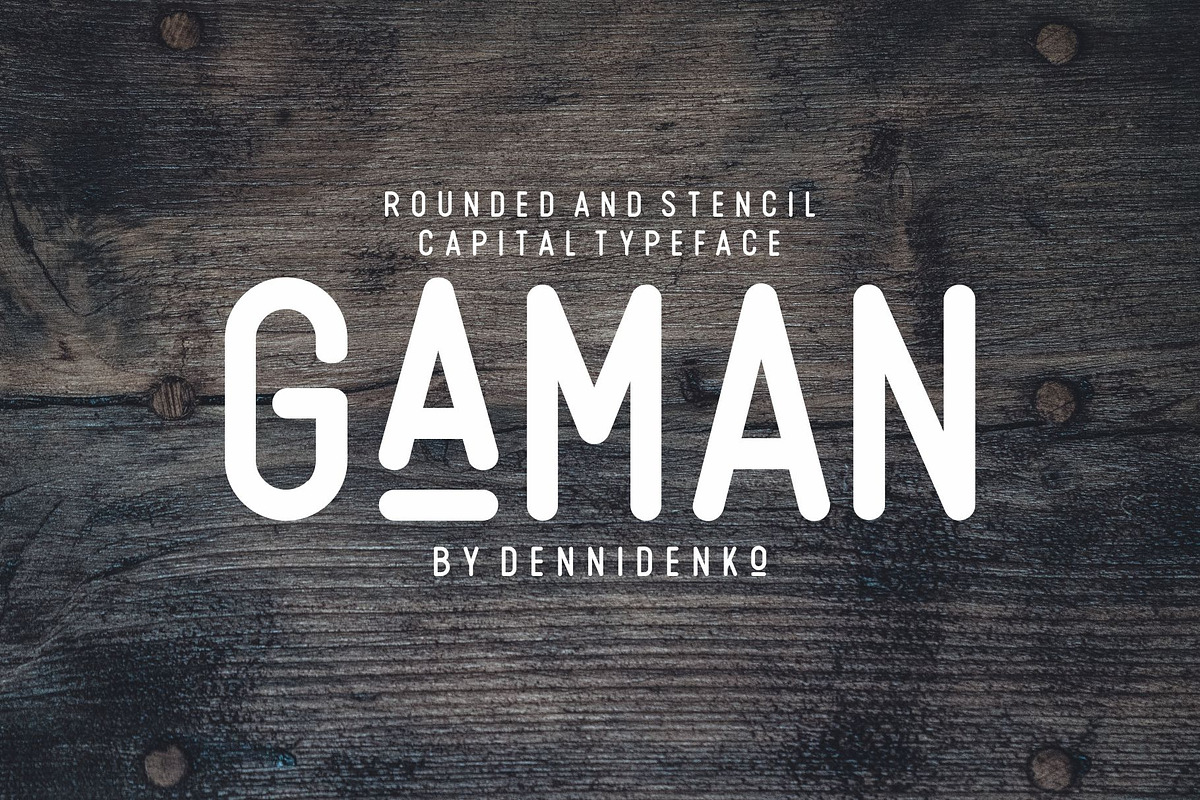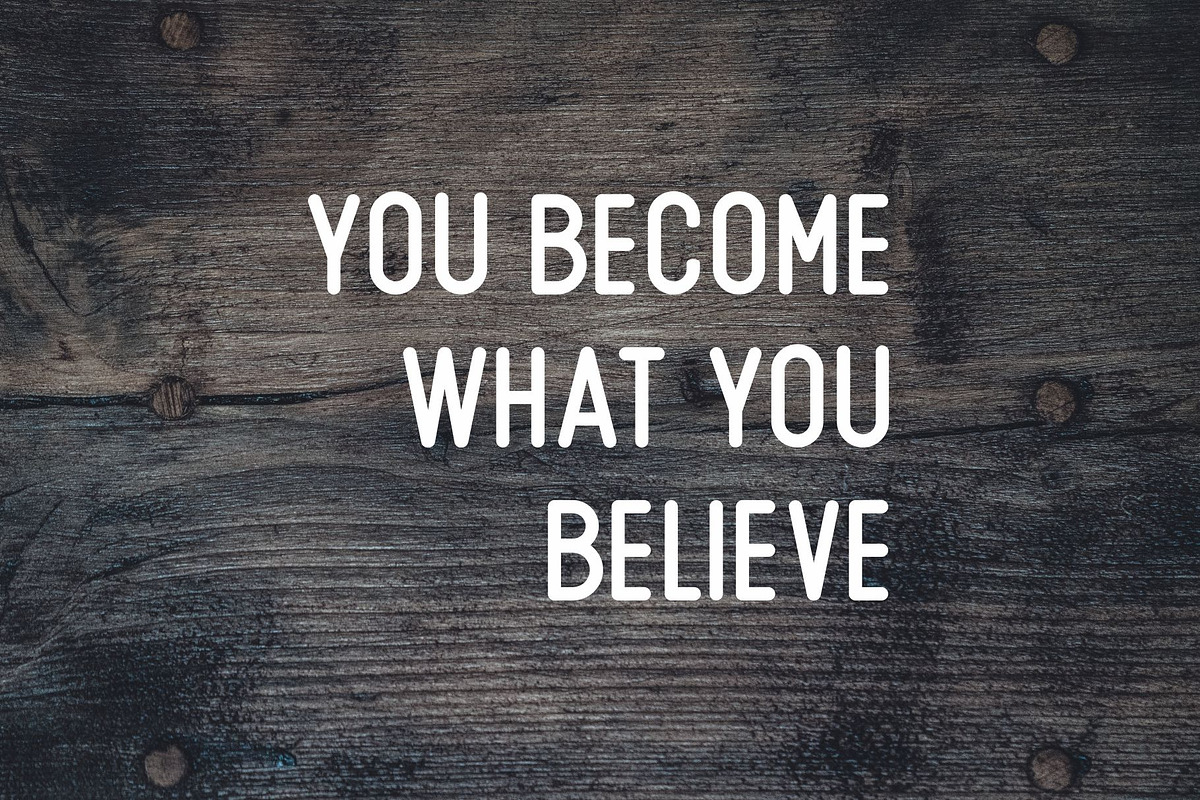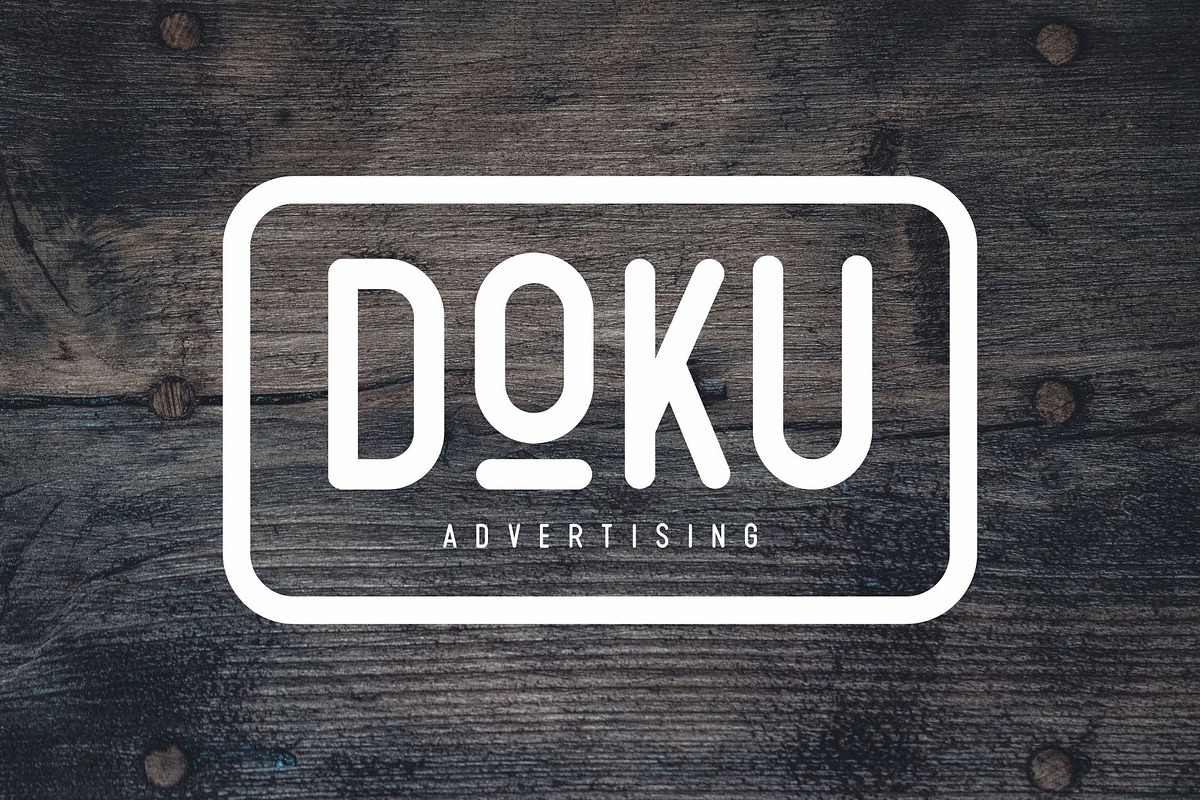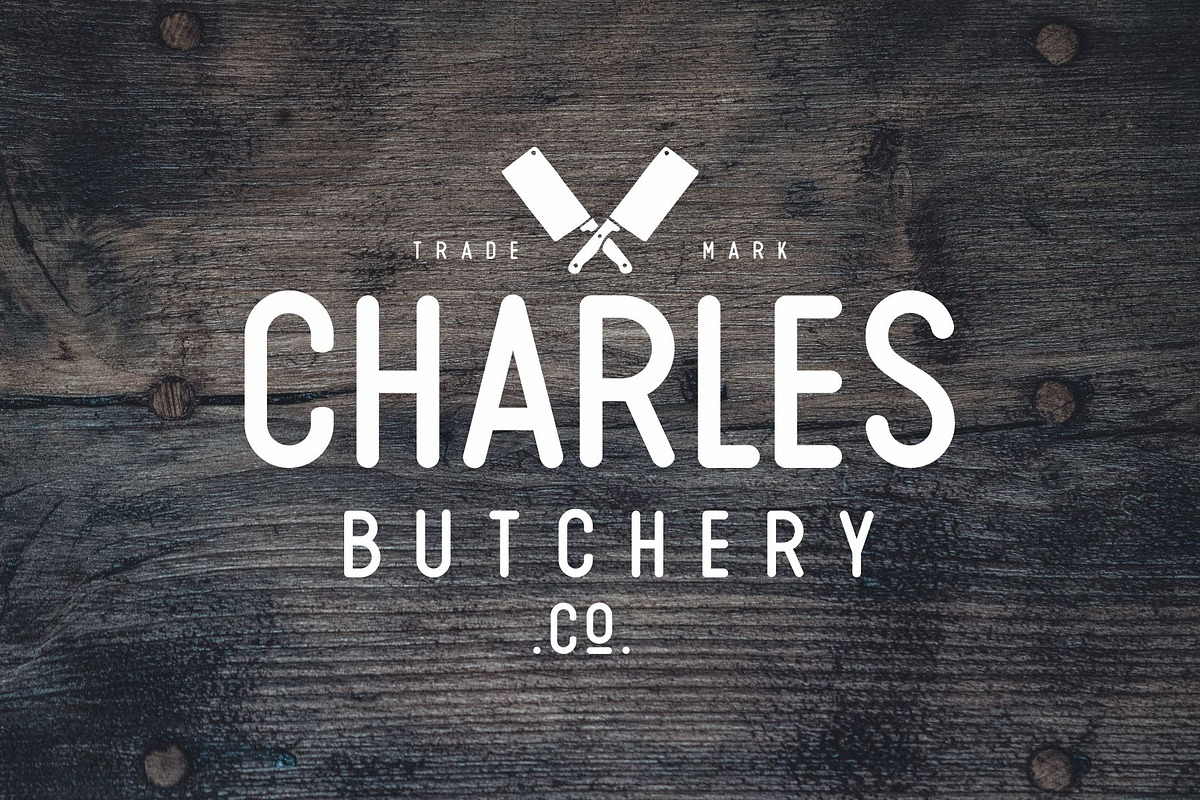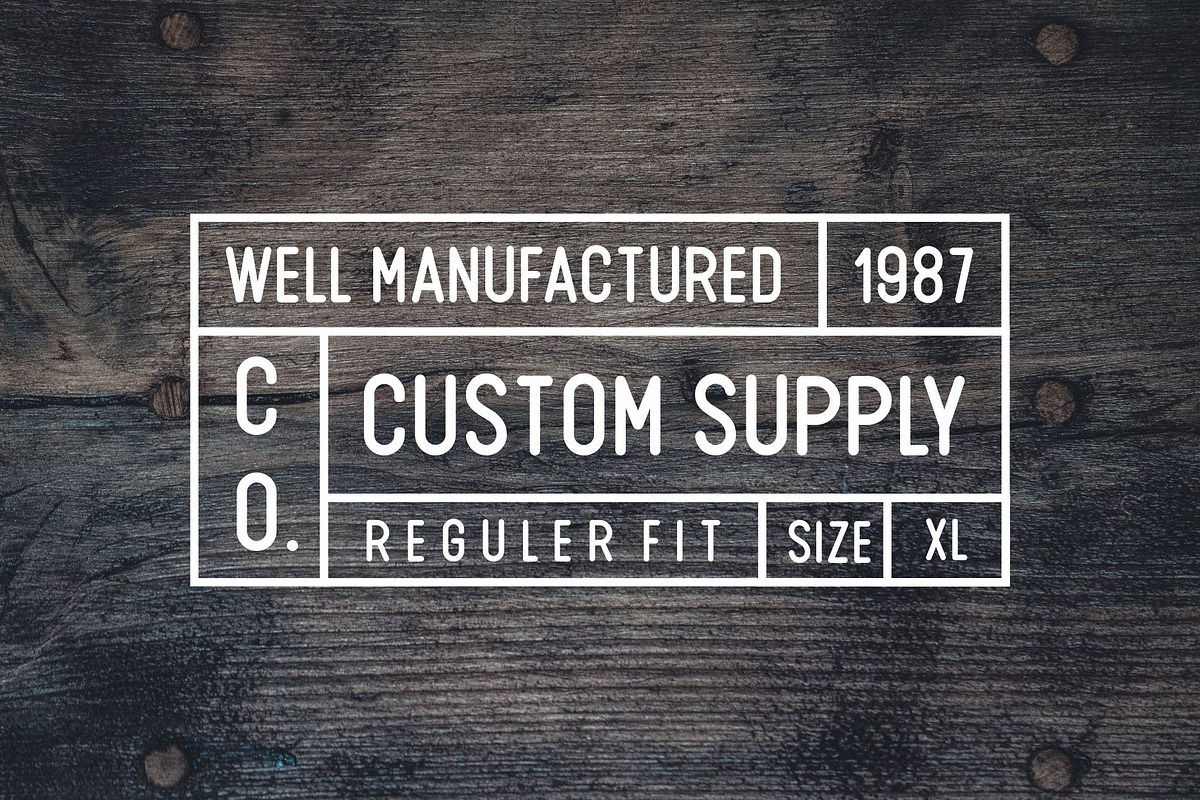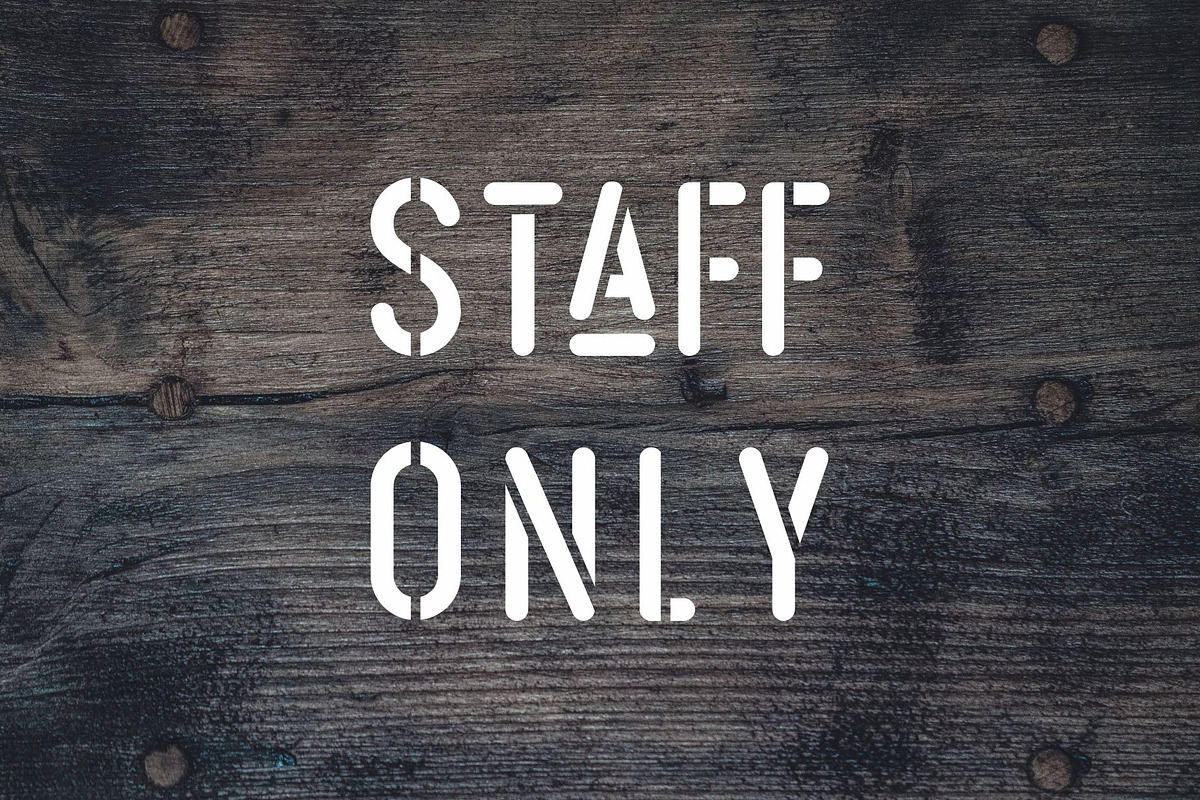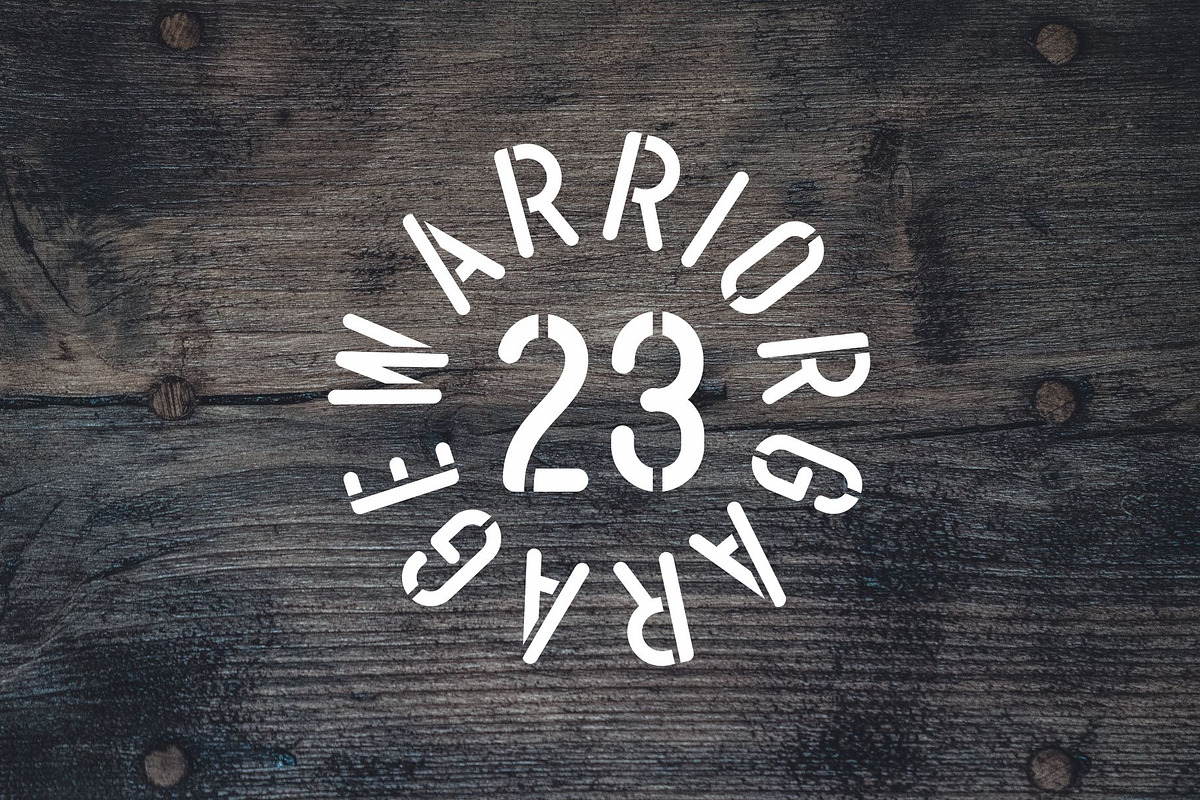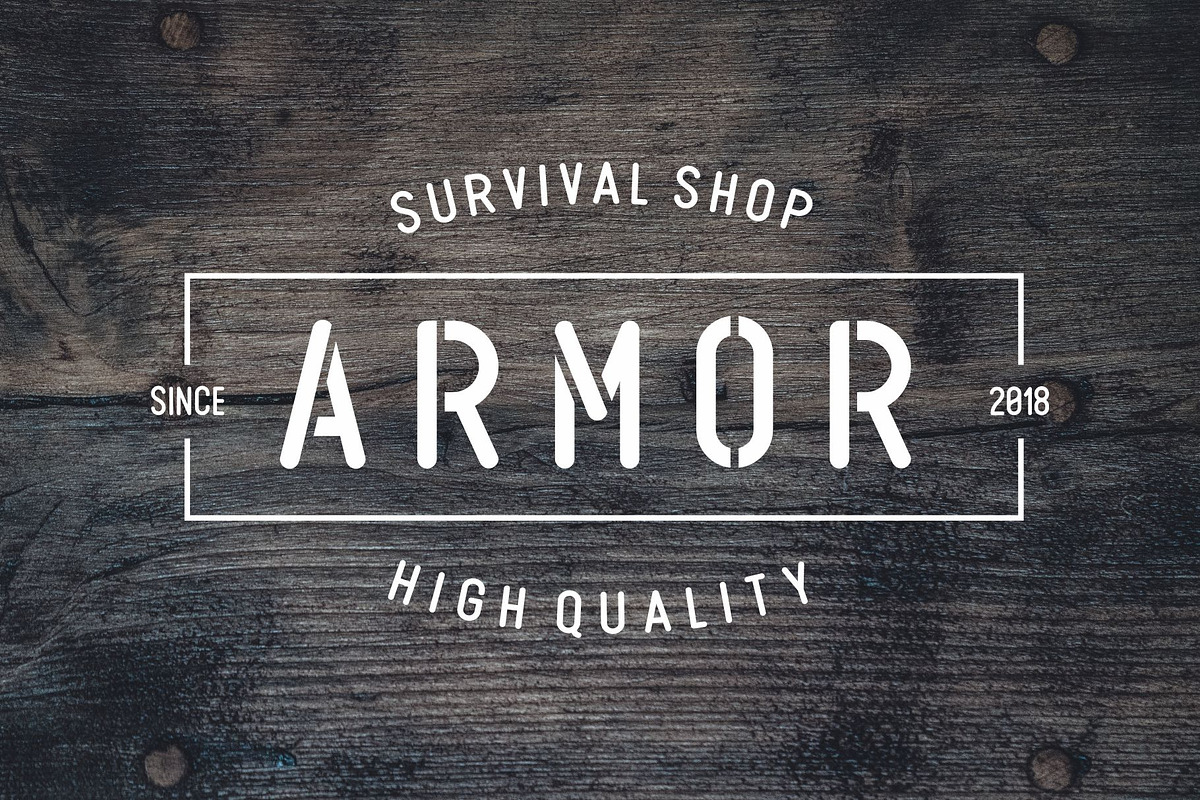
GAMAN TYPEFACE
HELLO ! introducing my new rounded and stencil capital typeface "GAMAN". This typeface suitable for simple design with minimal accent. Good for creating badges, logos, sign, quotes and other design that minimalist, elegance and simple. Also you can use it if you want to create army look design with the stencil typeface
- This typeface suitable for simple design with minimal accent.
- GAMAN Regular
- GAMAN STNCL Regular